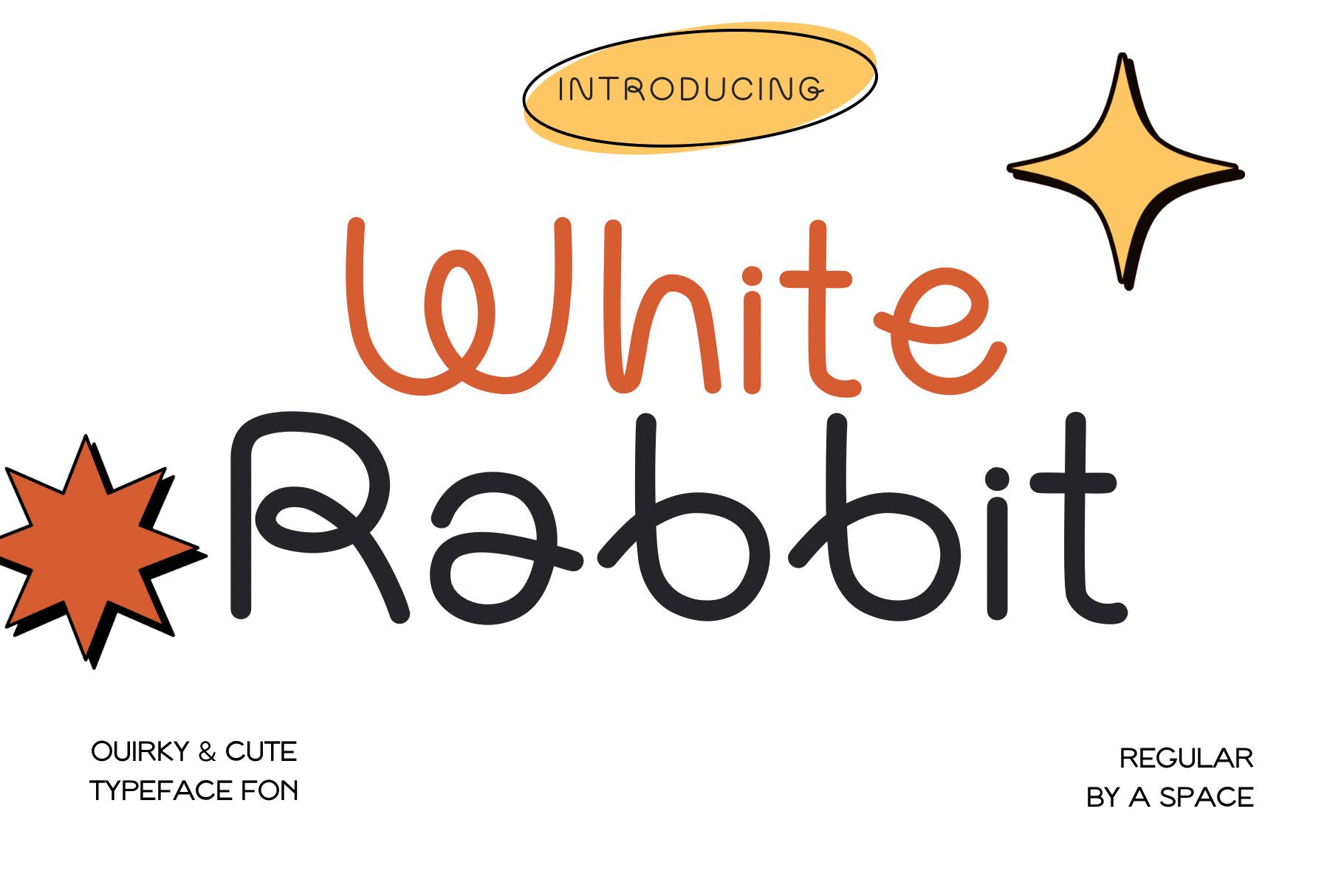
White Rabbit - Quirky Font
White Rabbit Font is a hand-lettered, cute and quirky font. This font can be used for anything such as shirt designs, cards, art, quotes, social media and so much more!